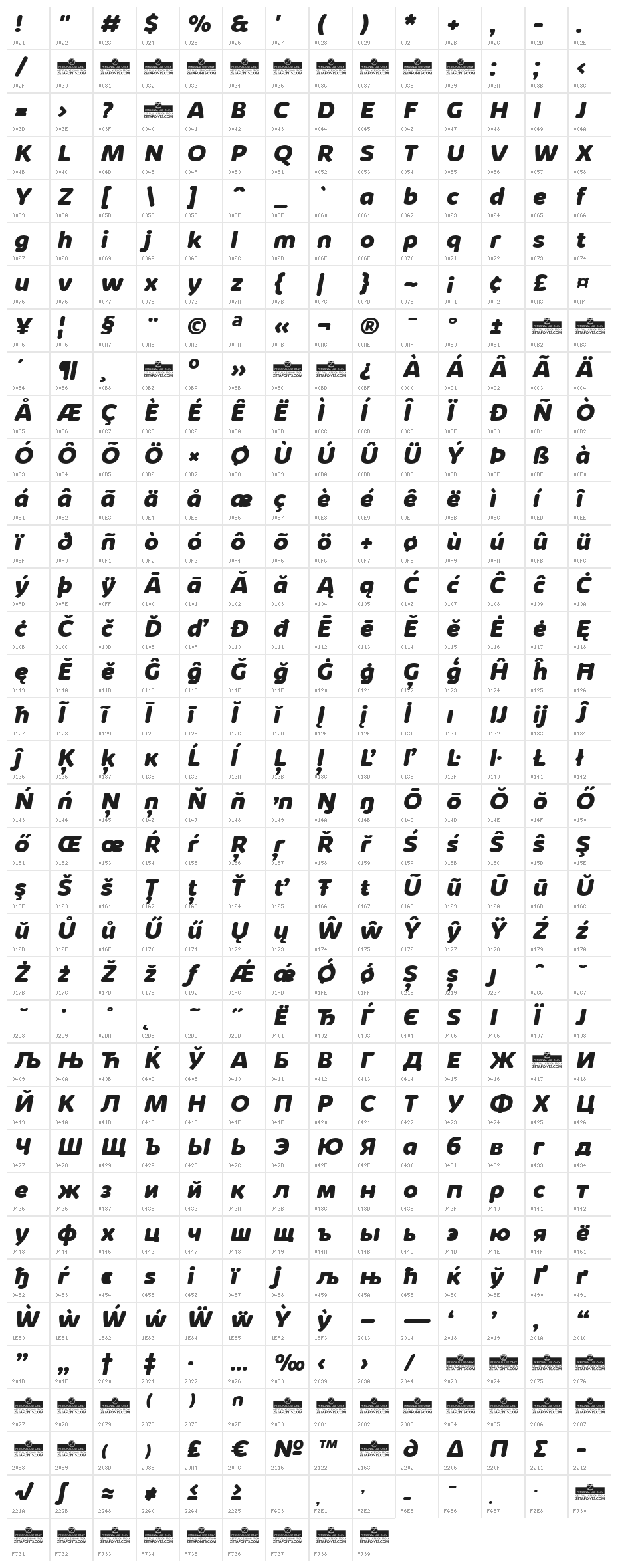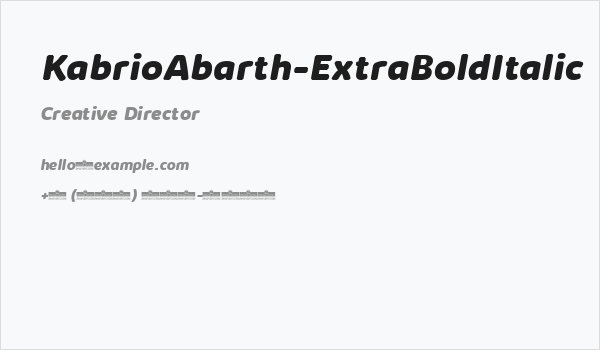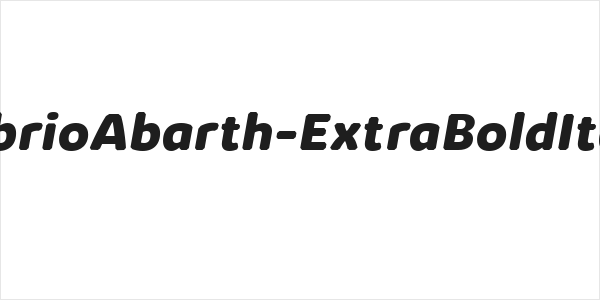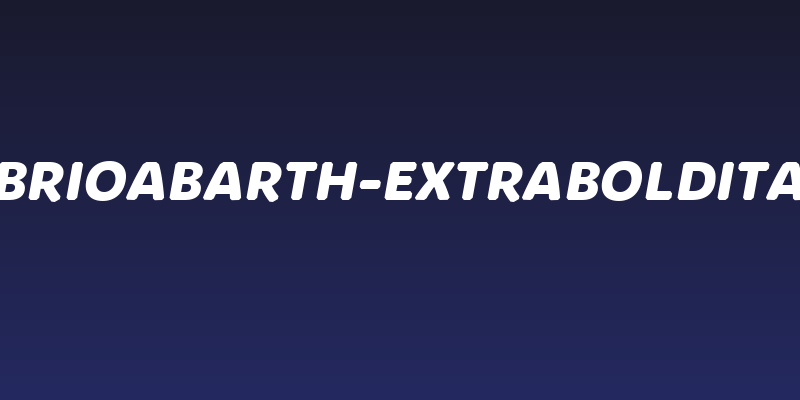
KabrioAbarth-ExtraBoldItalic Font
KabrioAbarth-ExtraBoldItalic Description
This font exhibits a bold and dynamic style with a strong presence. The characters are designed with a slight italic slant, adding a sense of movement and energy. The strokes are thick and consistent, providing a robust and confident appearance. The rounded edges soften the overall look, making it approachable and friendly. The font maintains a uniform width across all characters, ensuring readability and balance. It is well-suited for modern applications where a bold statement is needed.
| Proposed Projects | Ideal for branding, advertising, headlines, and any project requiring a bold and modern typeface. |